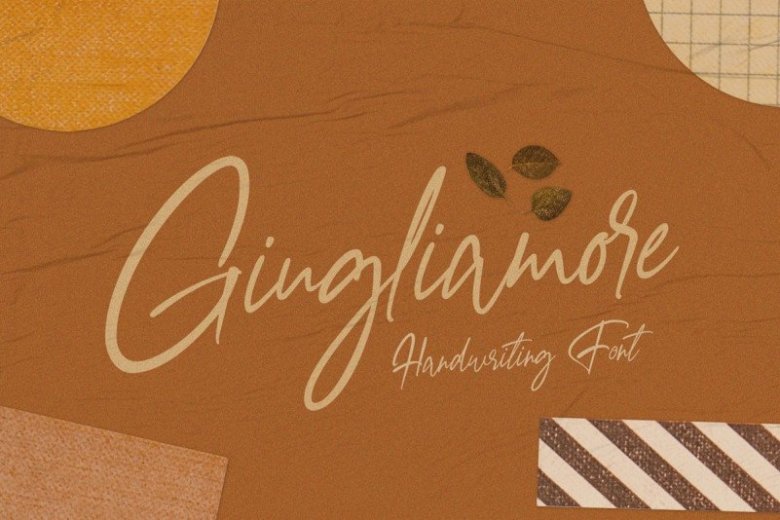
Giugliamore Handwriting Font
A lovely natural handwriting font by Moovied Co.. For those of you who are needing a touch of elegant and modernity for your designs, this font was created for you! Introducing Giugliamore Font. It’s a modern signature, It is perfect for blogging, social media, branding, product packaging, wedding invitations, branding, headlines, signage, labels, signature, book covers, posters, quotes and more.